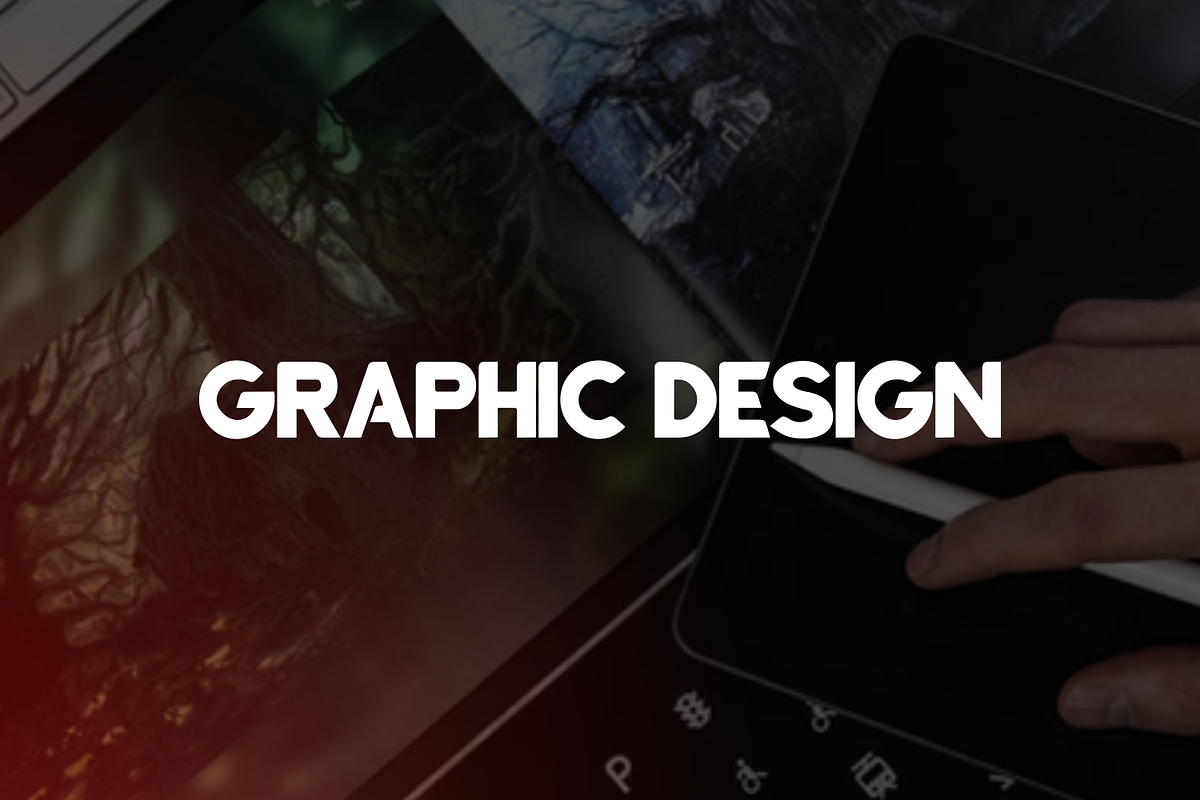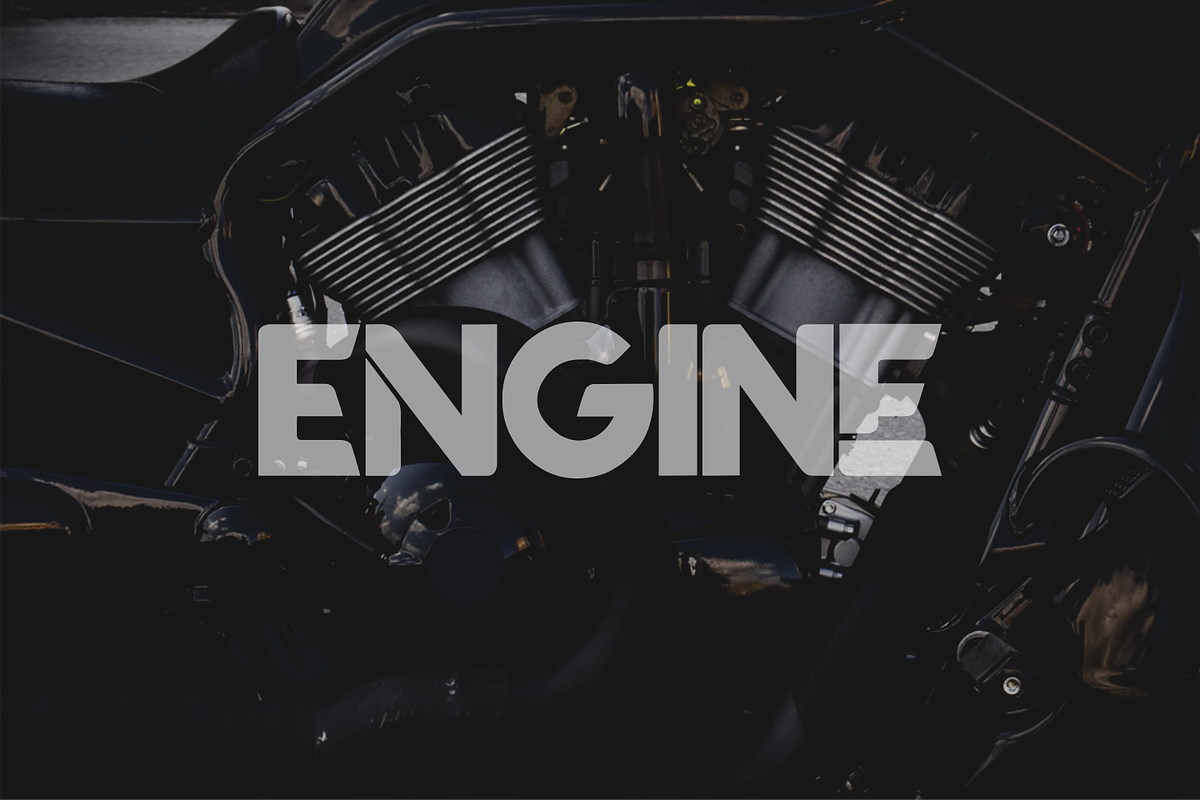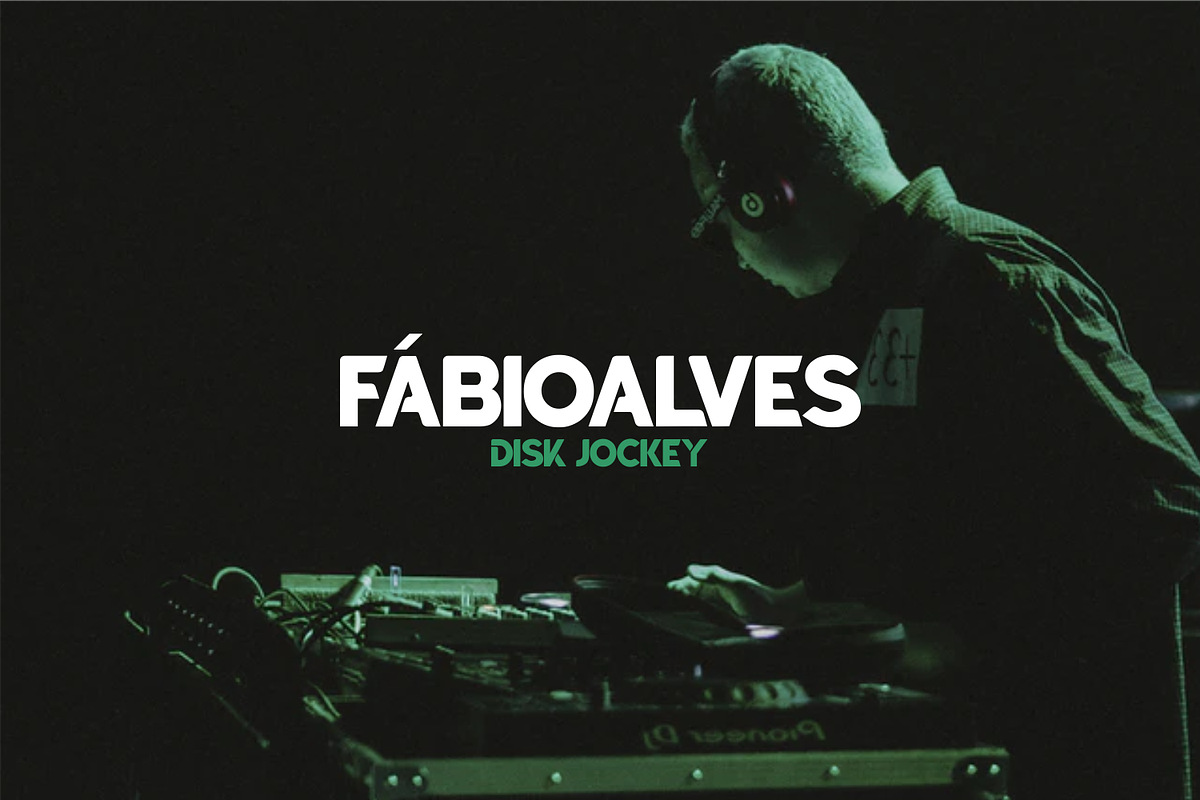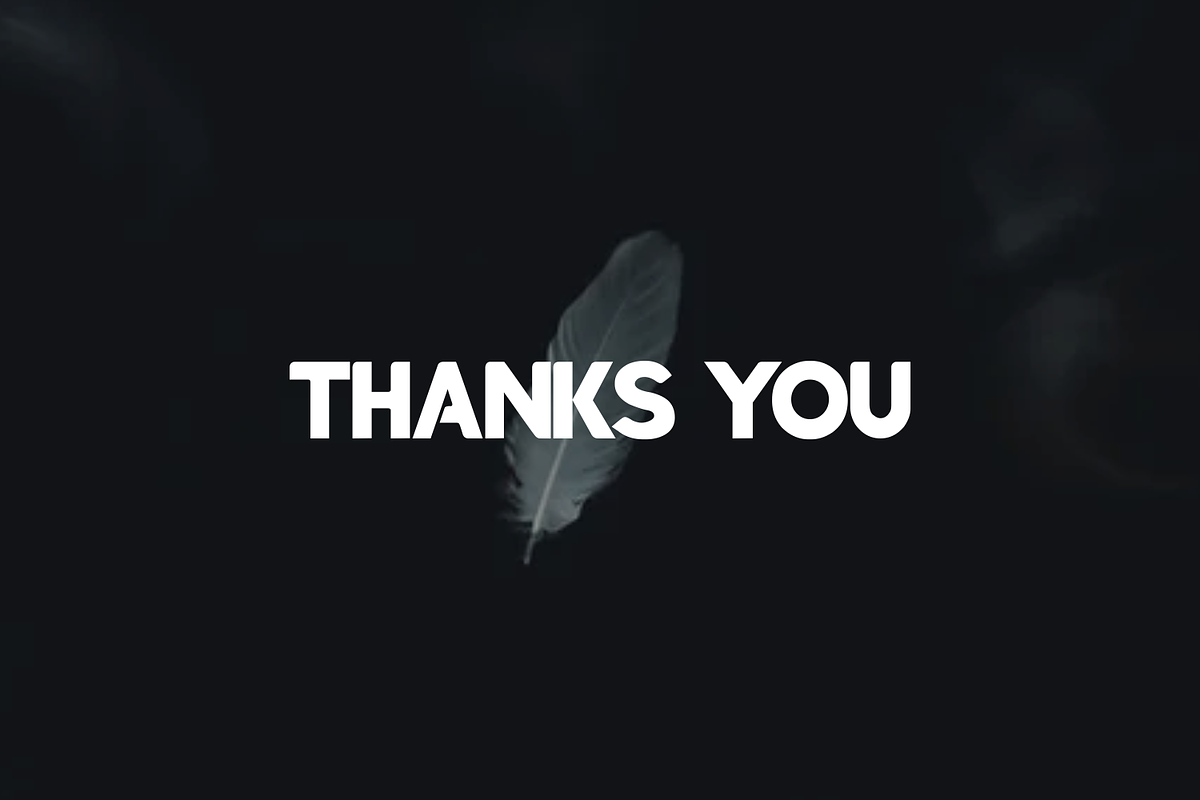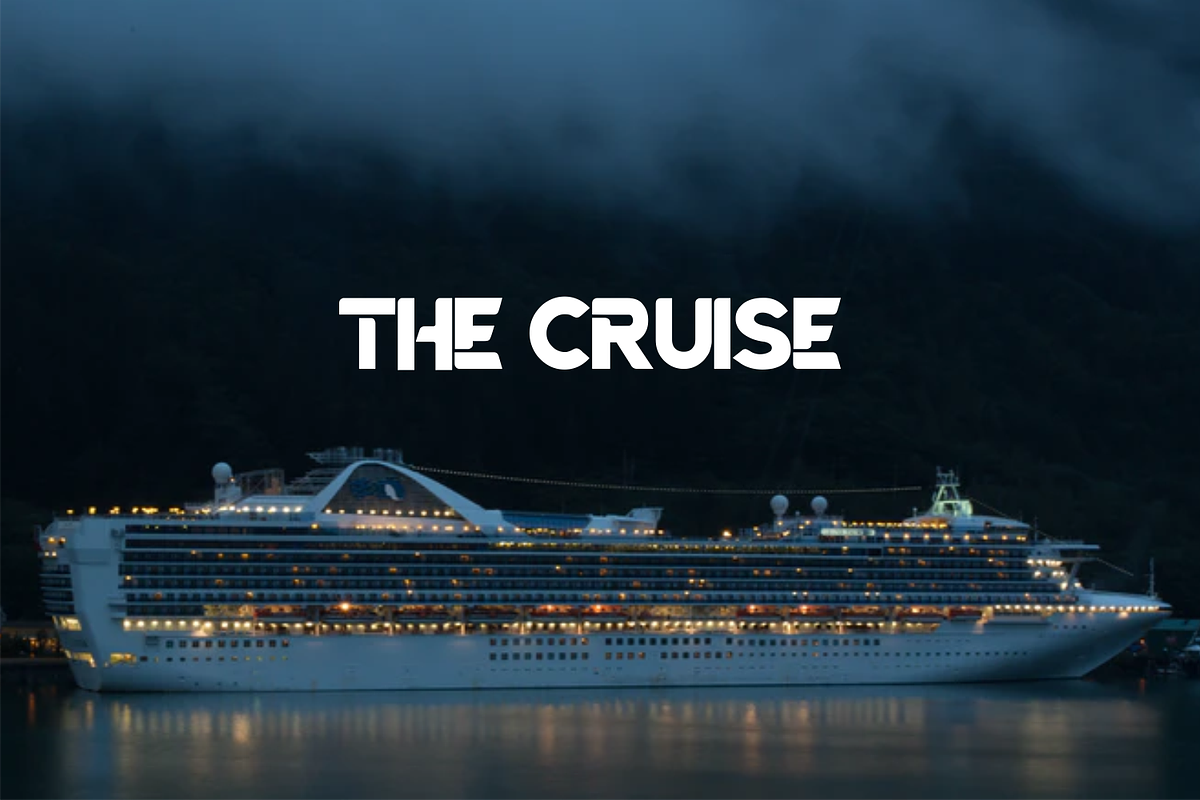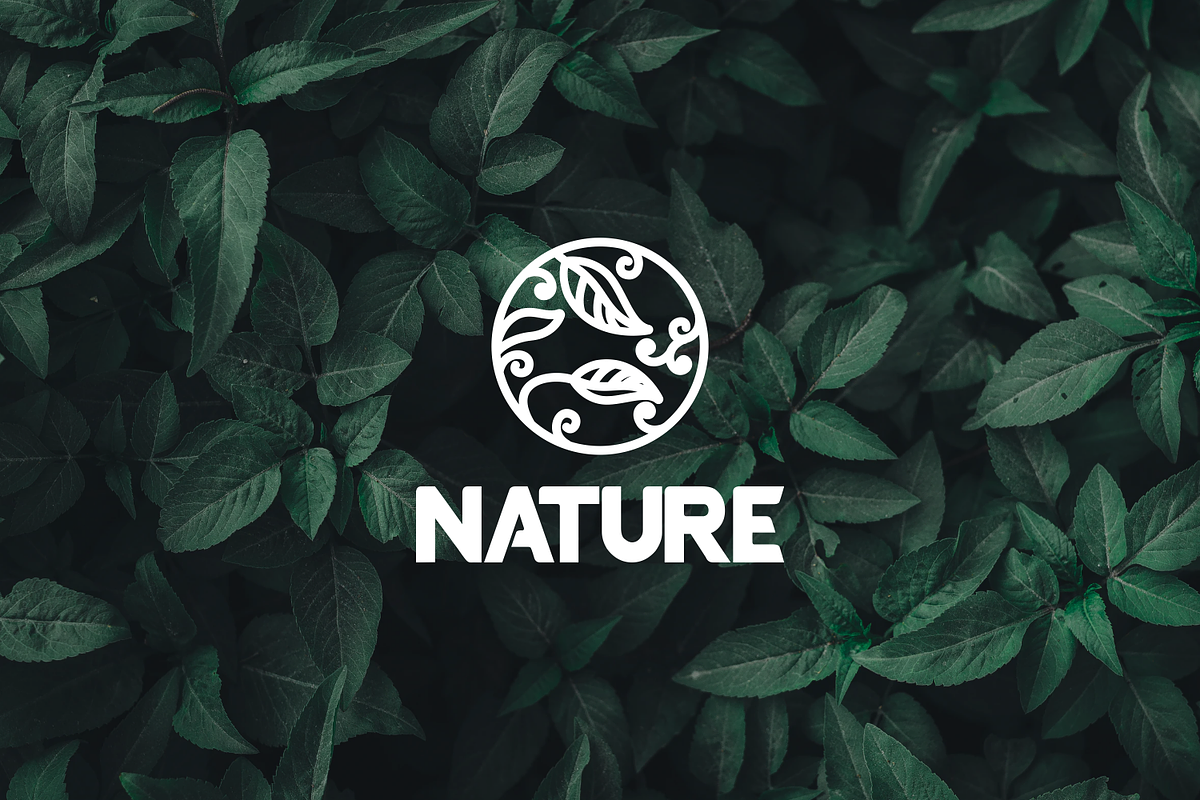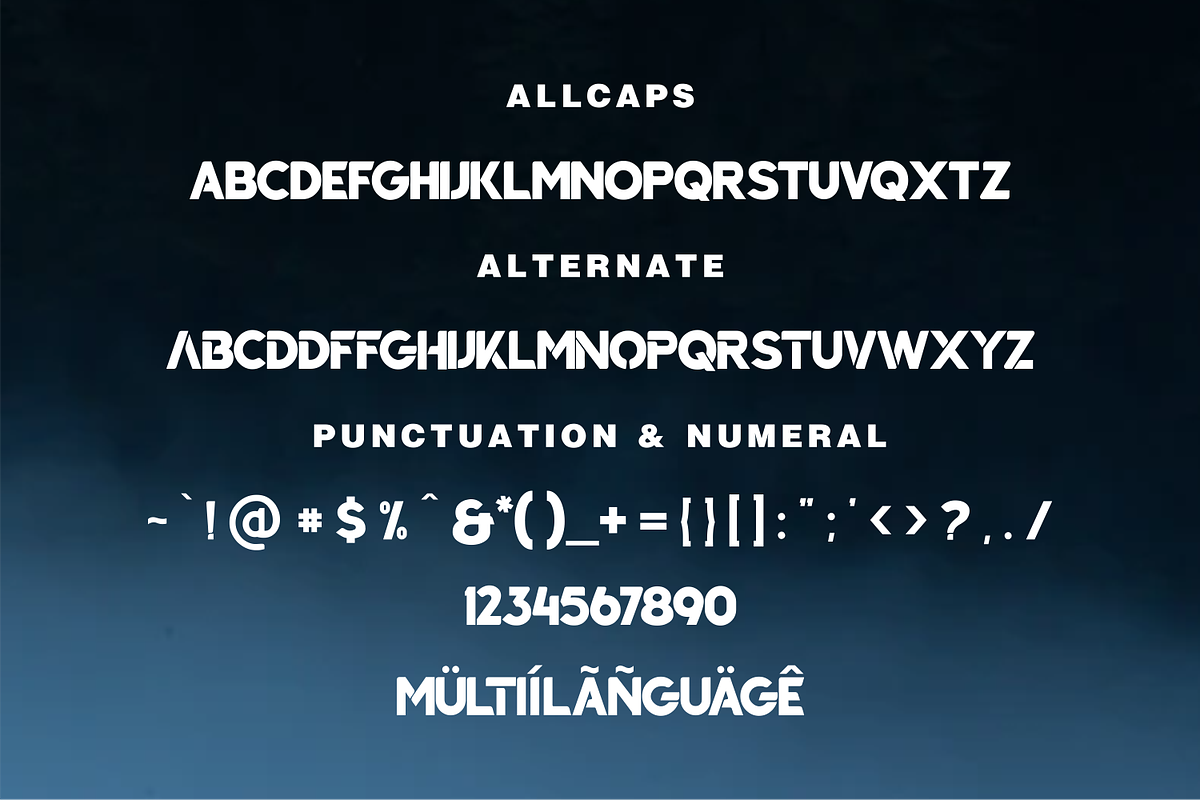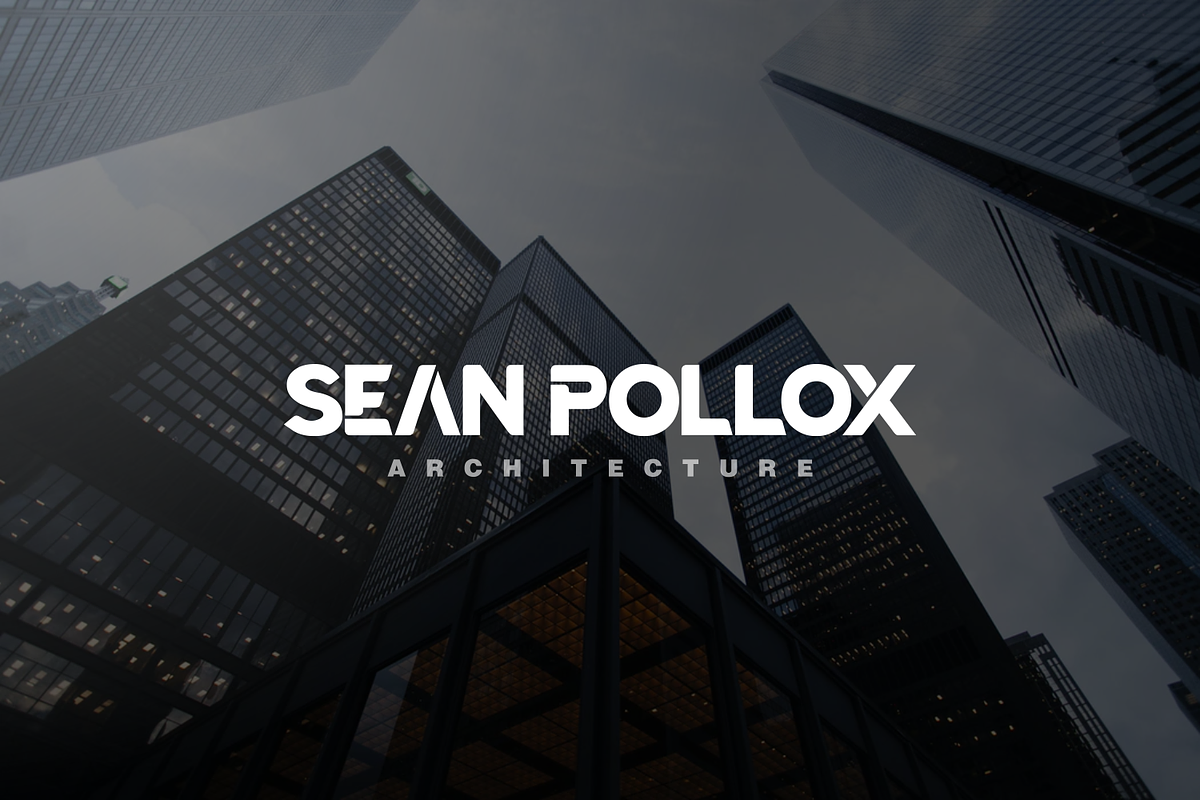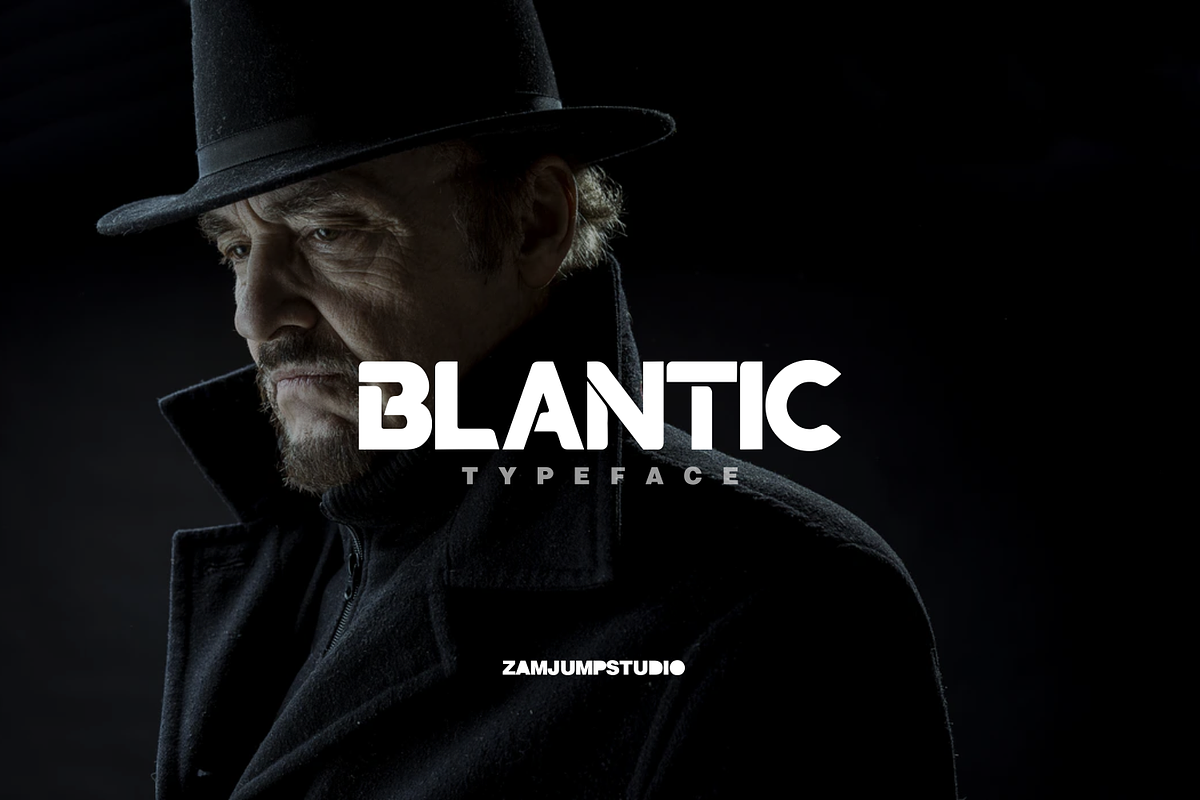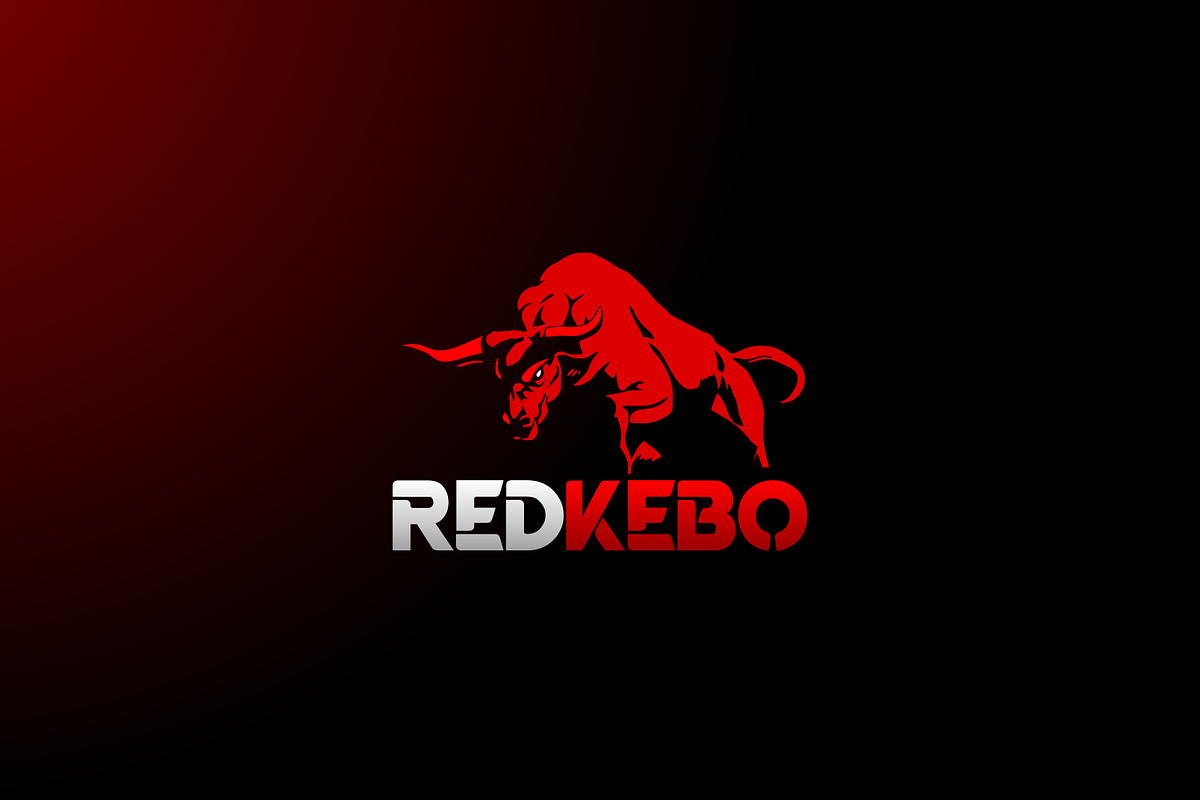
BLANTIC
BLANTIC is a modern and dynamic sans font that contains all caps and alternative fonts. The combination of futuristic and geometric elements creates a modern design. very suitable for use in various logo designs, posters, book covers, films, sports and several other formal designs, very easy to read, try some alternative letters to get the impression of dynamism and harmony between letters. What’s Included : +Blantic (OTF/TTF) +Sandard Glyphs +Web Font +Multilingual Accent +Work on PC and Mac, with simple Instalation
OpenType features (ligatures and alternatives) help make your writing more interesting. There are also alternating swashes